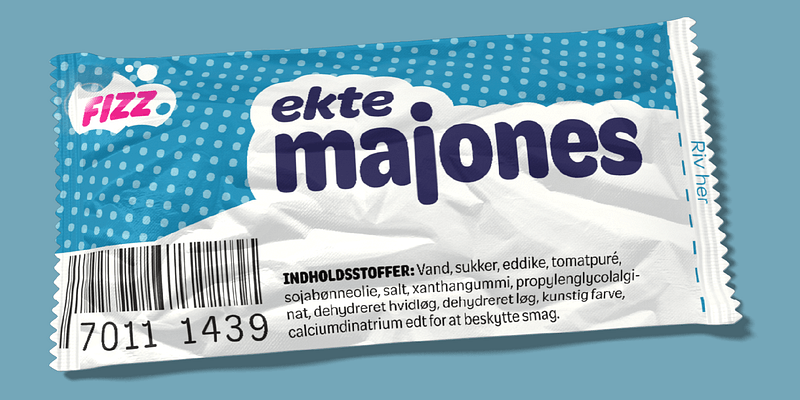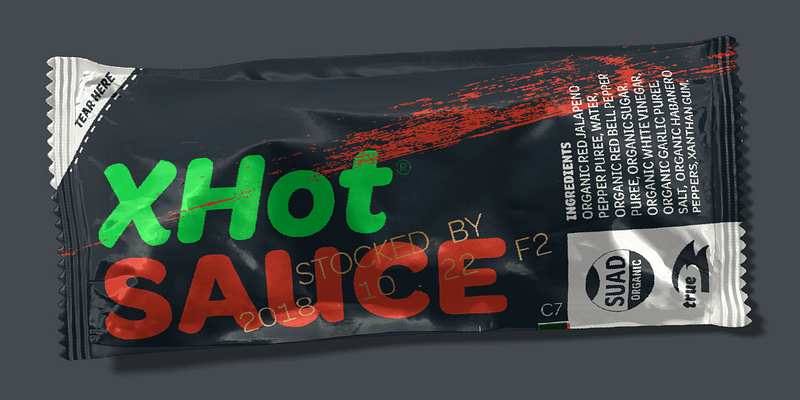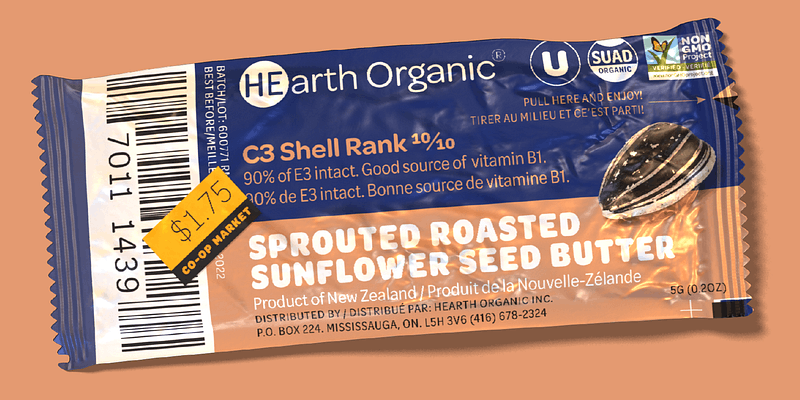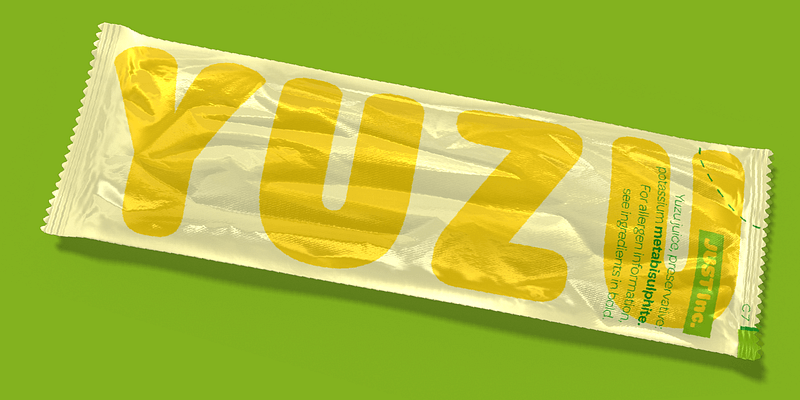
Omnes takes the curvaceous yet crisp original and turns it up to eleven. Many robust features have been added, making it better than ever for no-nonsense editorial work. Included are a wide range of index characters with eight variations; tabular figures and punctuation for chart work and information design; true numerator and denominator figures with OpenType support for auto fractions; an array of eye-catching arrows; extended language support; and stylistic sets.
Originally conceived as the brand typeface for a national retail chain, Omnes meets the need for a rounded typeface which is neither overly mannered nor excessively literal in its approach. Selective rounding adds subtle texture & circumvents the ‘sausage-link’ effect, while non-geometric forms pay homage to 19th-century rounded Grotesques which appeared well before the crisp visual style of the Bauhaus.
Omnes’s middle range is built for text use, and its weights on either end of the spectrum command a broader range of moods, from its austere, warm Hairlines to its punchy, convivial Blacks.
Designed by Joshua Darden, with design and production assistance by Noam Berg, John Hudson, Thomas Jockin, Scott Kellum, Jesse Ragan, Dan Reynolds, and Eben Sorkin. Width expansion by Viktoriya Grabowska with art direction from Eben Sorkin and kerning by ikern.